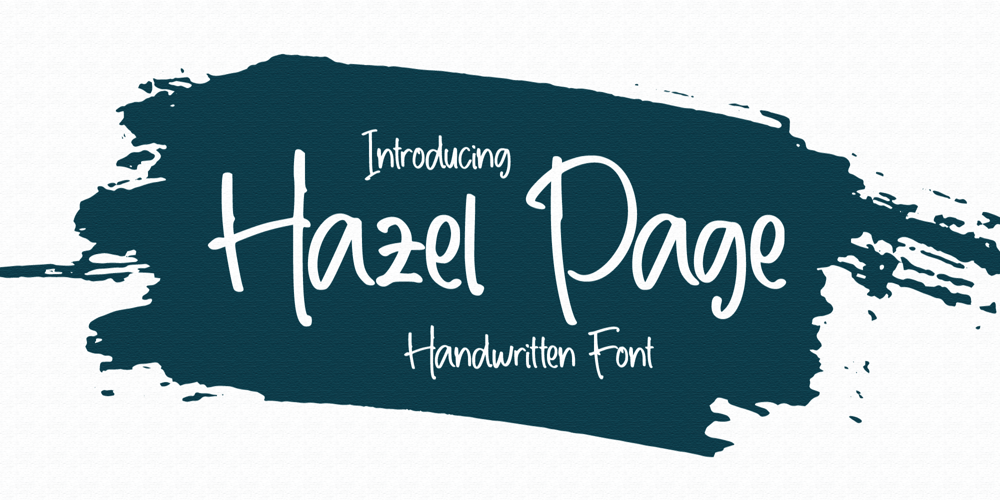
Hazel Page Font Family was designed by Lia Almuknisa and published by Fromletterel. Hazel Page contains 1 styles and family package options. Hazel Page has natural stroke and casual look that gives youth and friendly vibes, suitable for branding, video editing material, printing and any other kind of designs